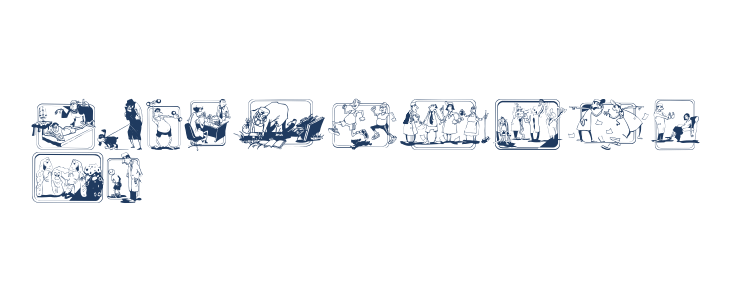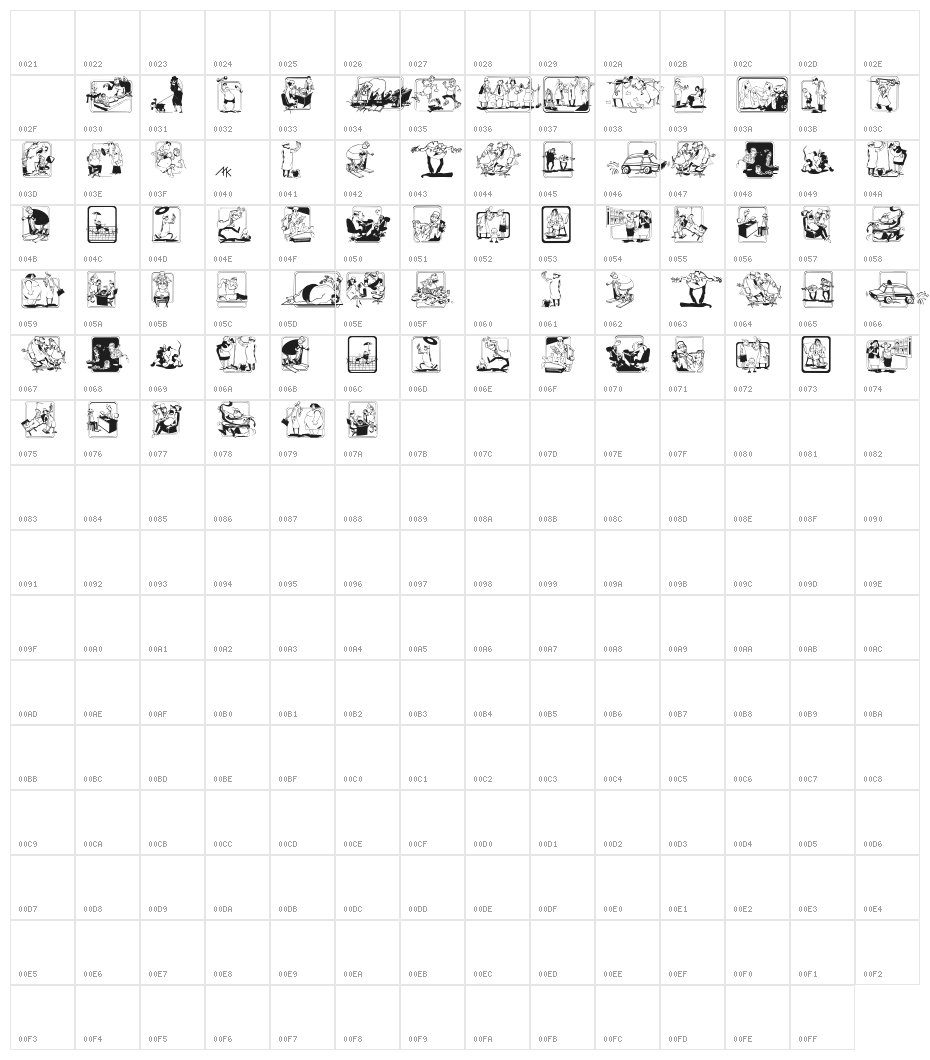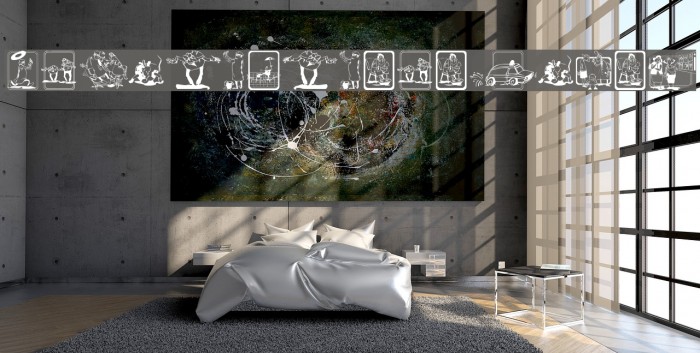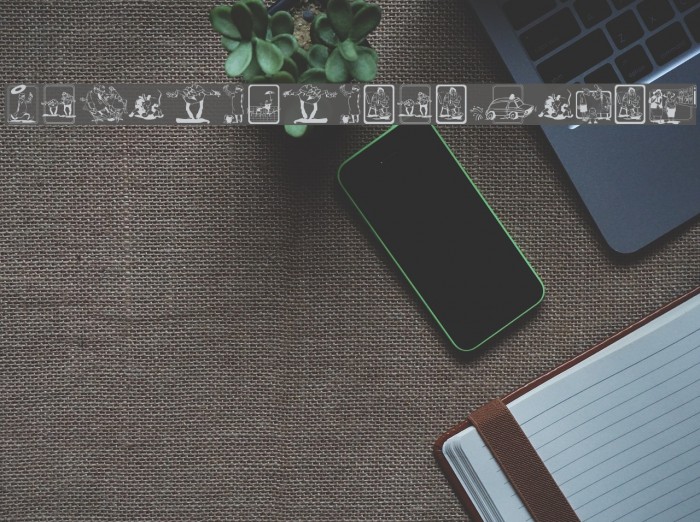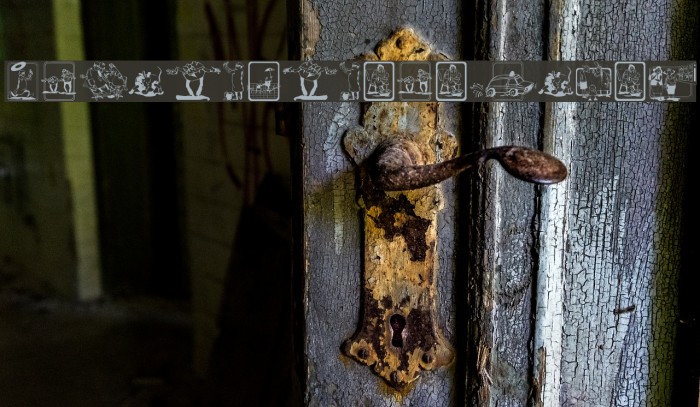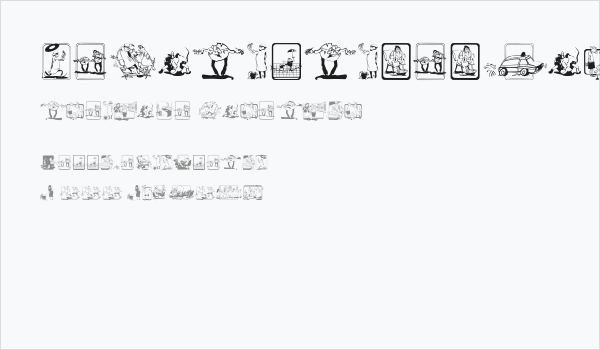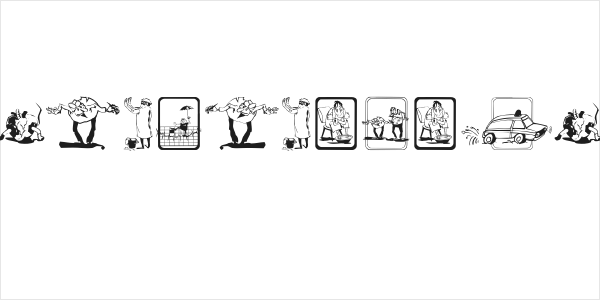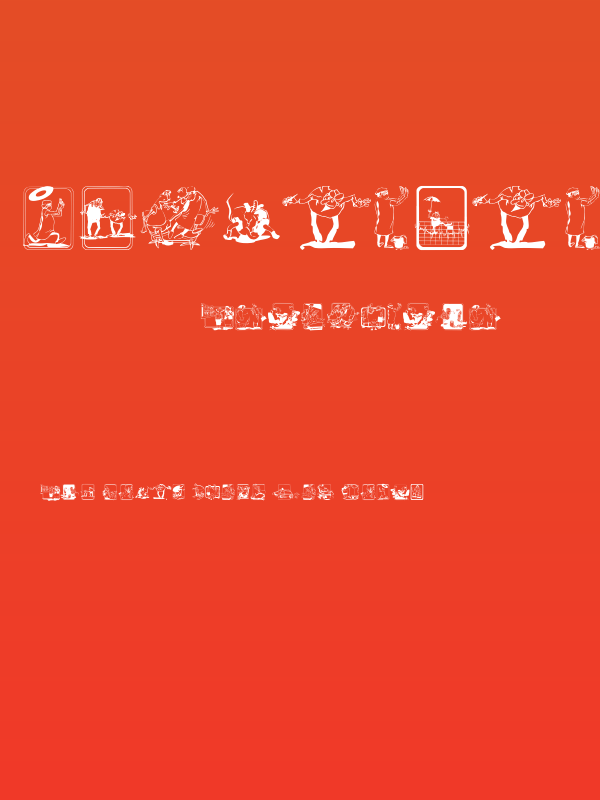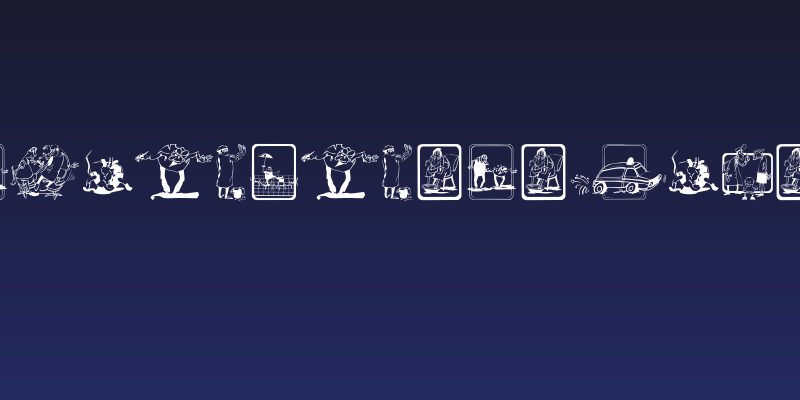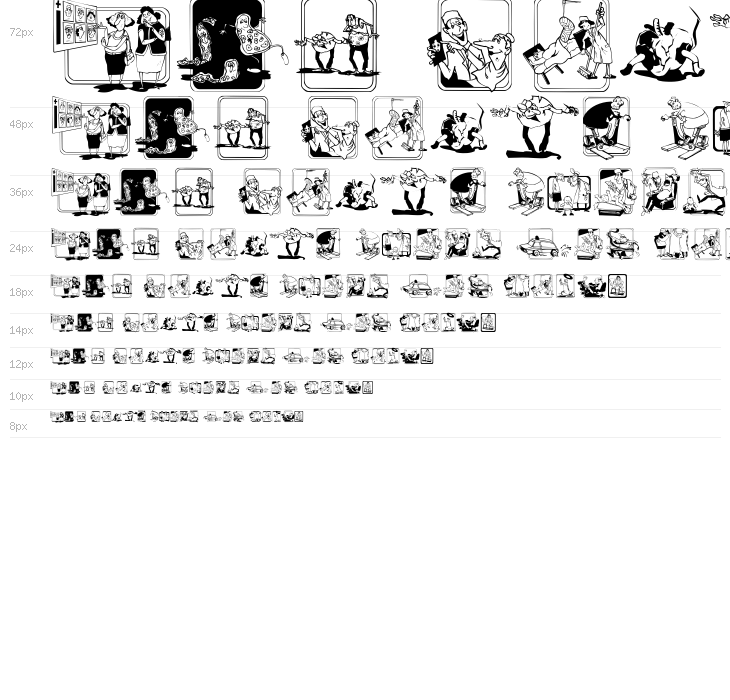
MedicalCasesFirst Font
MedicalCasesFirst Description
A decorative display set featuring detailed cartoon-style medical and healthcare scenes, each character or group enclosed in a rounded rectangle. The illustrations are expressive, humorous, and highly detailed, with thick outlines and dynamic poses, emphasizing storytelling over typographic clarity.
| Overall Style | Decorative, Humorous, Thematic |
| Use Case | Illustrative elements for medical or healthcare-related content, not suitable for body text. |
| Proposed Projects | Healthcare presentations, educational posters, children's medical books, comic strips, themed event materials. |